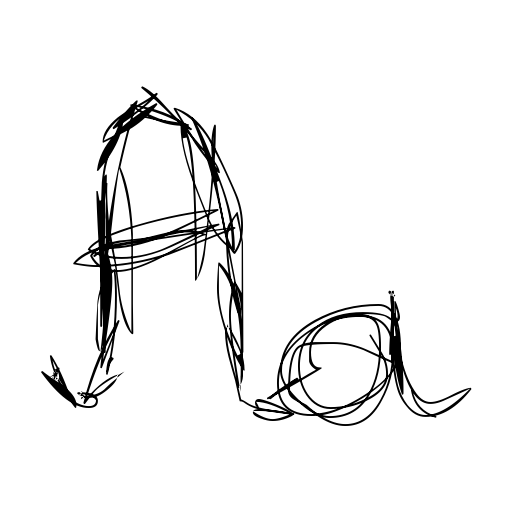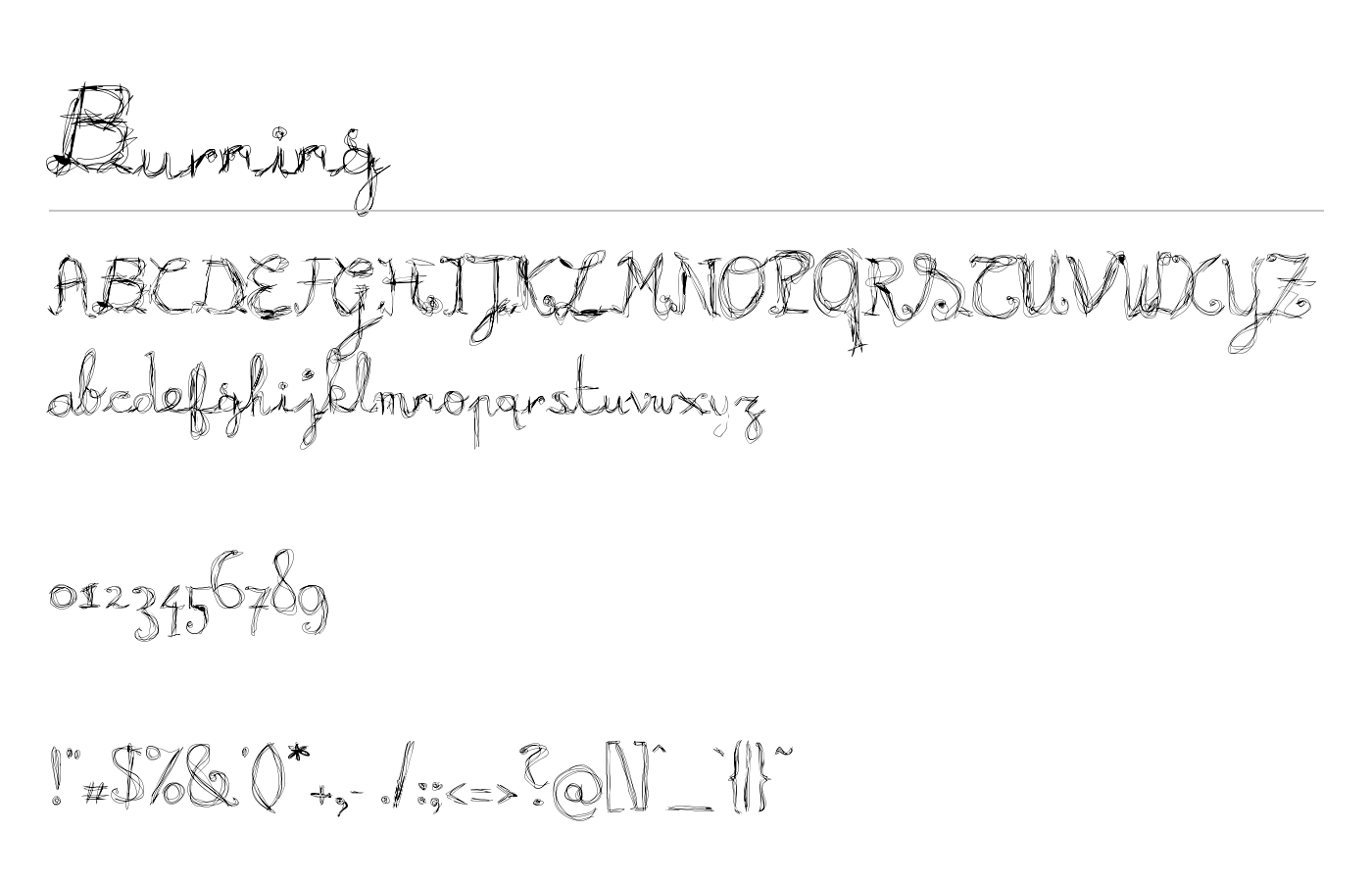
Burning Font is a delicate, hand-drawn script style that features thin, wispy lines with a scribbled, sketch-like texture, giving it an artistic and ethereal feel. Its irregular, whimsical letterforms with distinctive loops and curls make it ideal for creative projects seeking a unique, expressive, and slightly mysterious character. This font works best in artistic branding, invitations, or editorial headlines where an imaginative and handcrafted look is desired.
Burning Font